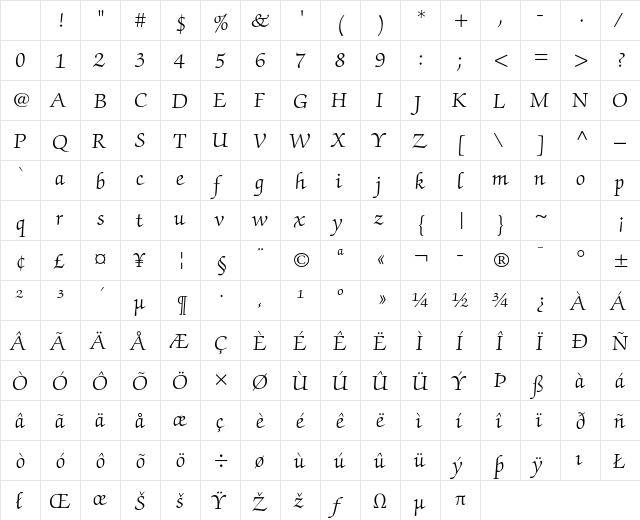
Complete ITC Zapf Chancery Std Light glyph index. Displaying only characters natively supported by ITC Zapf Chancery Std Light font.
ITC Zapf Chancery Std is a composed and adaptable typeface that performs quietly and consistently across a wide range of design contexts. Its slender proportions lend an understated elegance to any composition.